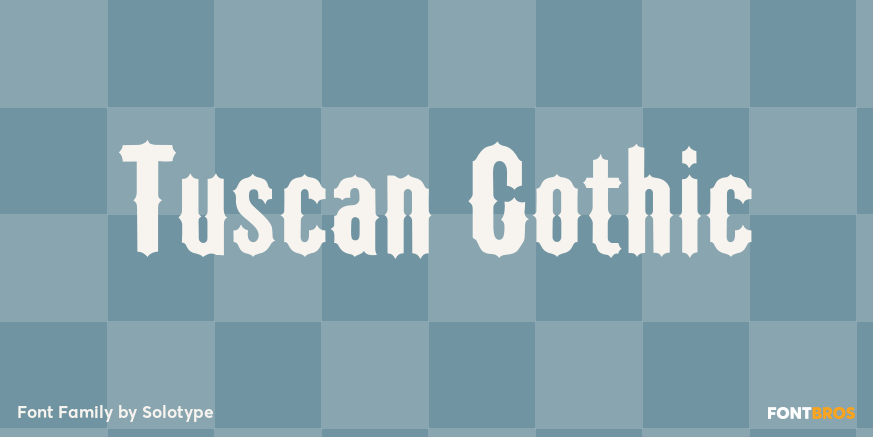
HomeFont BrosHistoricalTuscan Gothic HistoricalSpecial Effect Tuscan Gothic FacebookXPinterestWhatsApp 1 of 1 About Tuscan Gothic This is a Vanderburgh and Wells wood type cap font from 1877. We don\’t know if the originators made a lowercase for it, but we did. Most effective in larger sizes.  DOWNLOAD NOW People also explored Jersey Font Dandelione Font Hampala Font Senandung Font Salted Caramel Font Aleena Font The Pontifice Font Smalline Font Savage Font 275 0 TagsTuscan Gothic Font Previous articleOld New EnglandNext articleAsterism Clean LEAVE A REPLY Cancel reply Comment: Please enter your comment! Name:* Please enter your name here Email:* You have entered an incorrect email address! Please enter your email address here Website: Save my name, email, and website in this browser for the next time I comment. Personal Use Free Dakwart Letter Personal Use Free Read more about this font Cheque Personal Use Free Read more about this font Kaysan Personal Use Free Read more about this font Strasua Personal Use Free Read more about this font BLOG Free Fonts Risk: Why Free Fonts Can Be Dangerous for Designers Free Fonts Risk: Why Free Fonts Can Be Dangerous for Designers Using free fonts is a common practice in web and graphic design. However, the... Best Fonts for T-Shirt Design – Top 2025 Picks Modern Sans-Serif Fonts That Brands Love in 2025 Top 7 Google Fonts Alternatives for Faster and Privacy-Friendly Web Design (2025)